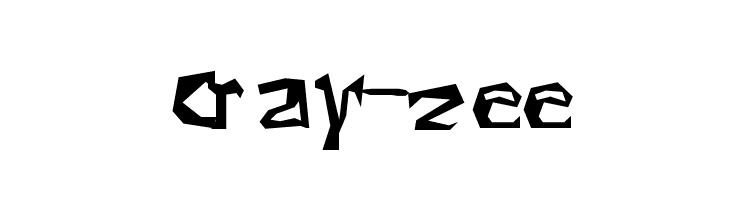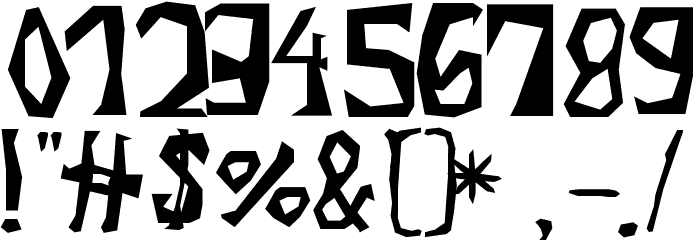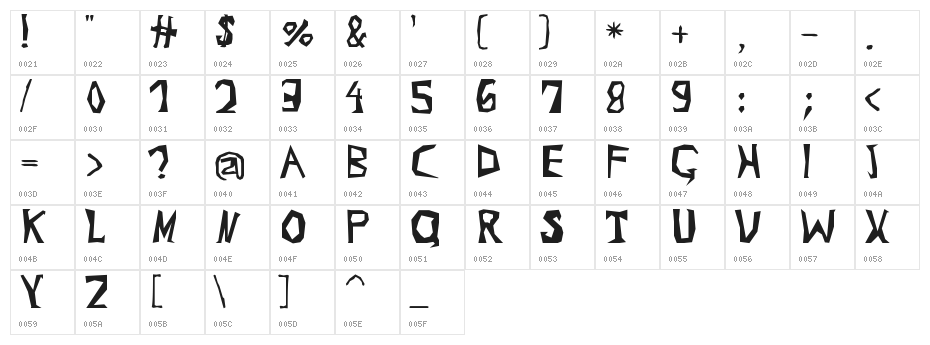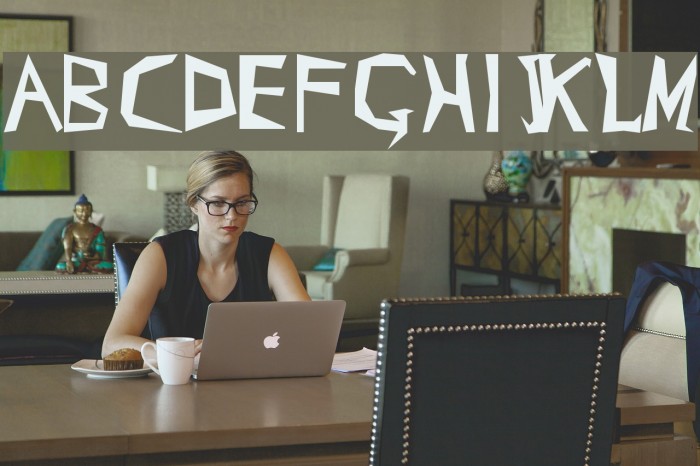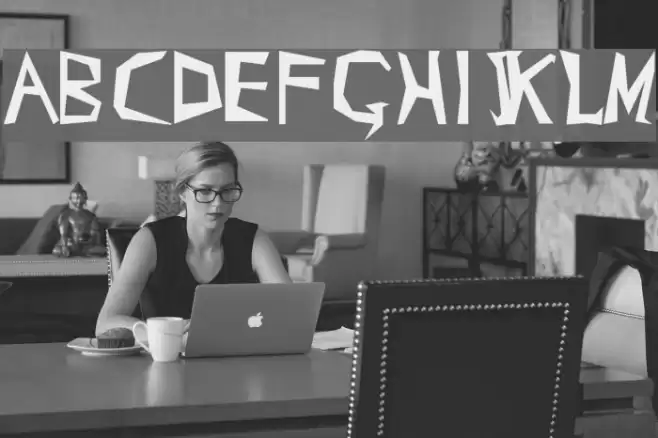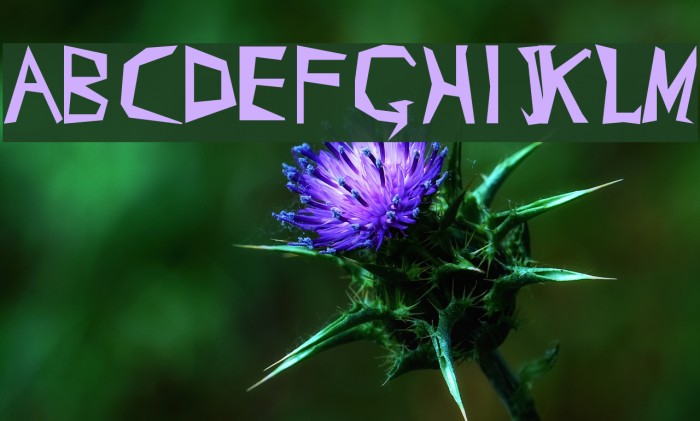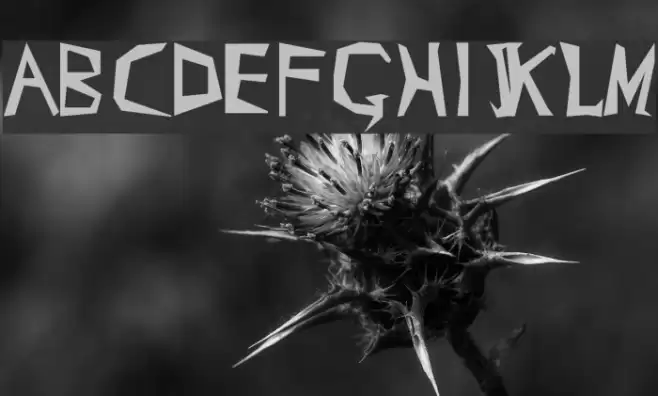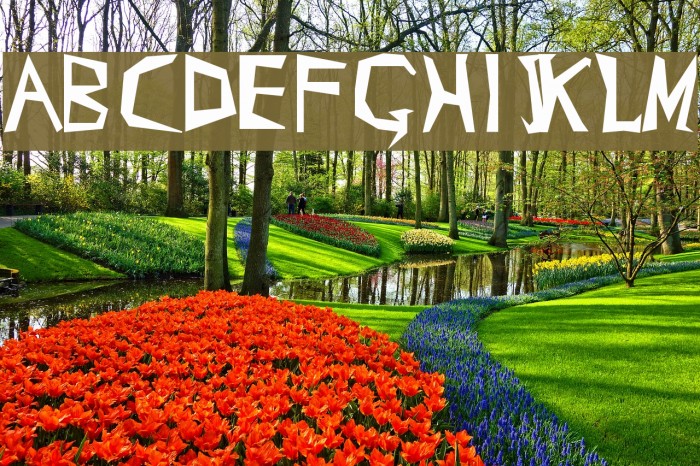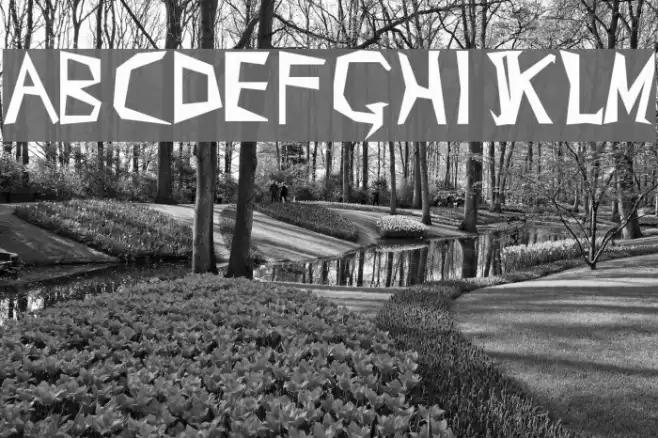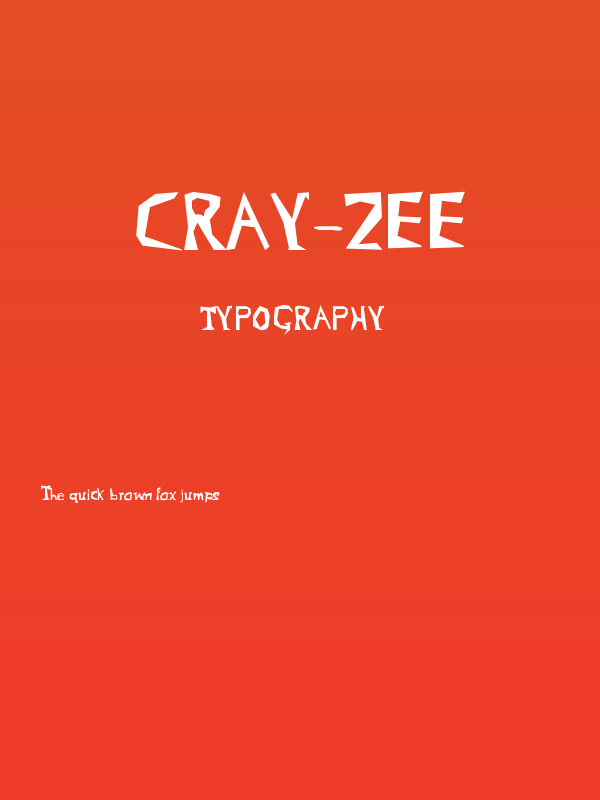
cray-zee Font
cray-zee Description
This font features a bold and edgy design with sharp, angular lines that create a sense of movement and energy. Each character is uniquely crafted with irregular shapes and varying stroke widths, giving it a hand-drawn, rebellious feel. The uppercase and lowercase letters maintain a consistent style, while the numbers and special characters add to its dynamic appearance. This font stands out with its high contrast and distinctive, jagged edges, making it ideal for projects that require a bold and unconventional look.
| Overall Style | Modern, Edgy |
| Proposed Projects | Ideal for music album covers, edgy branding, posters, and street art-inspired designs. |